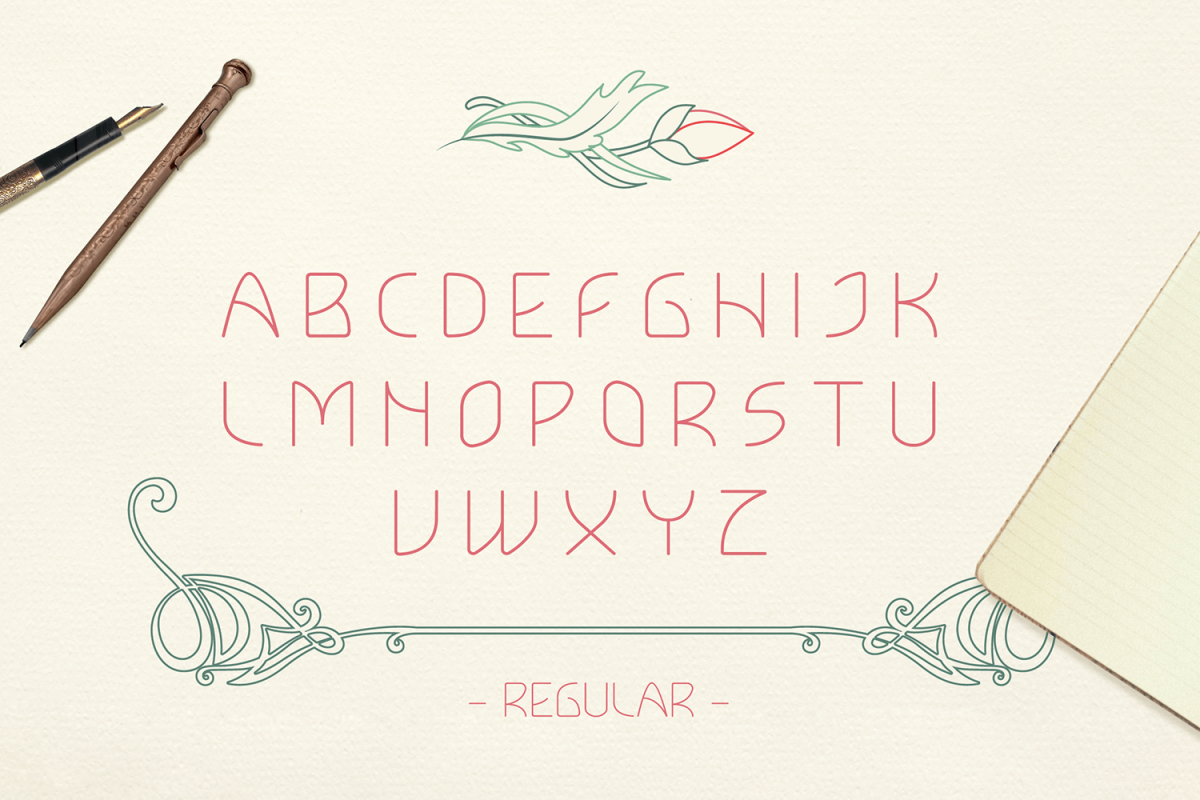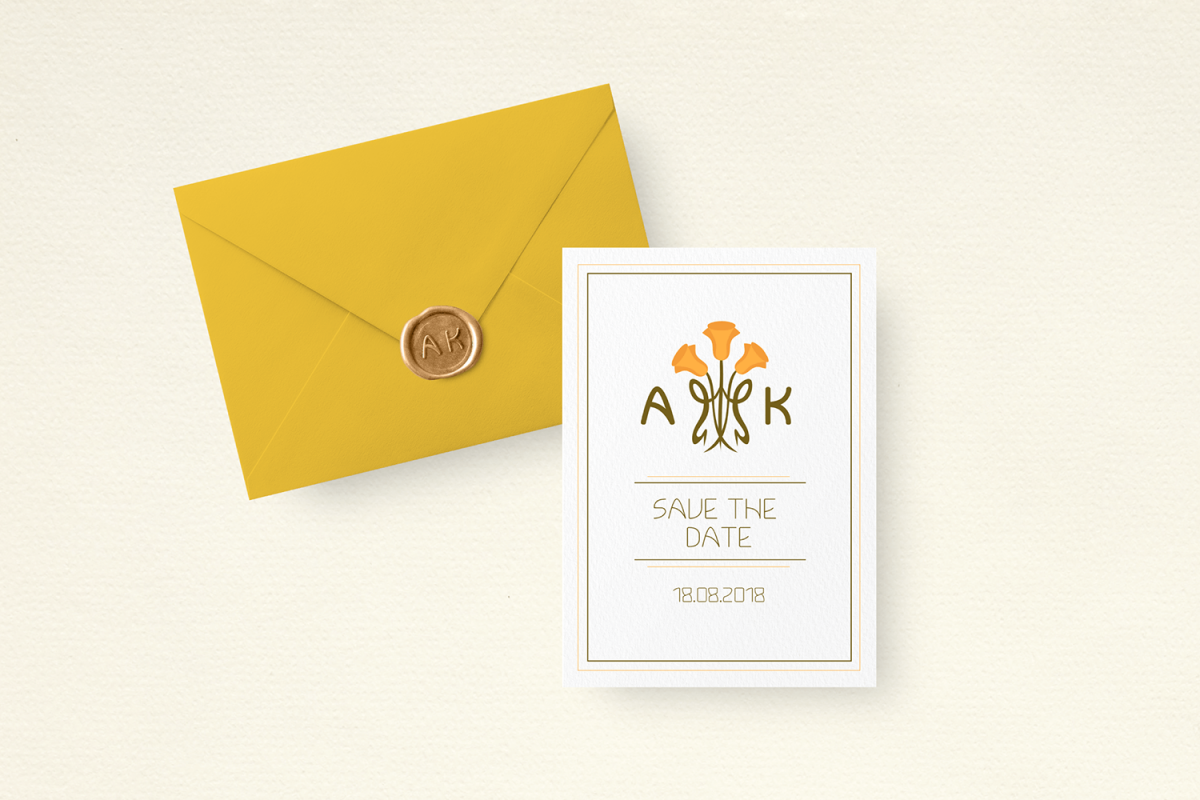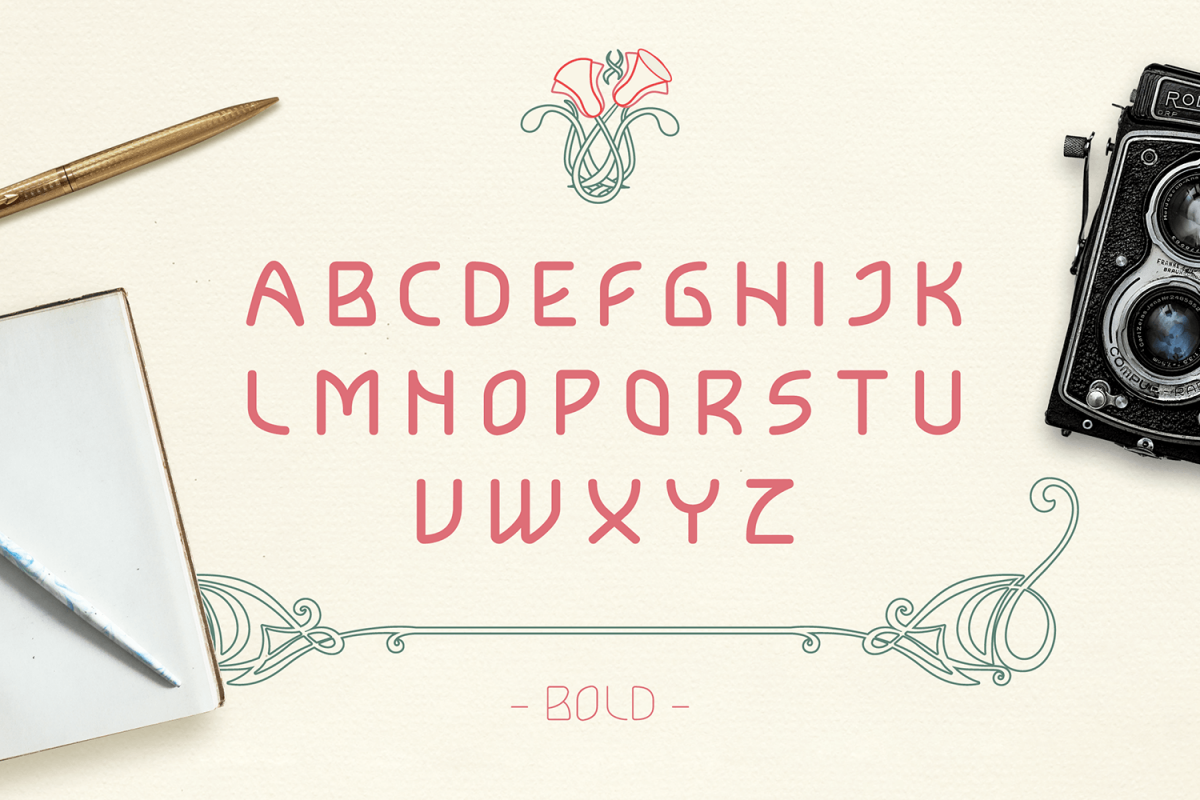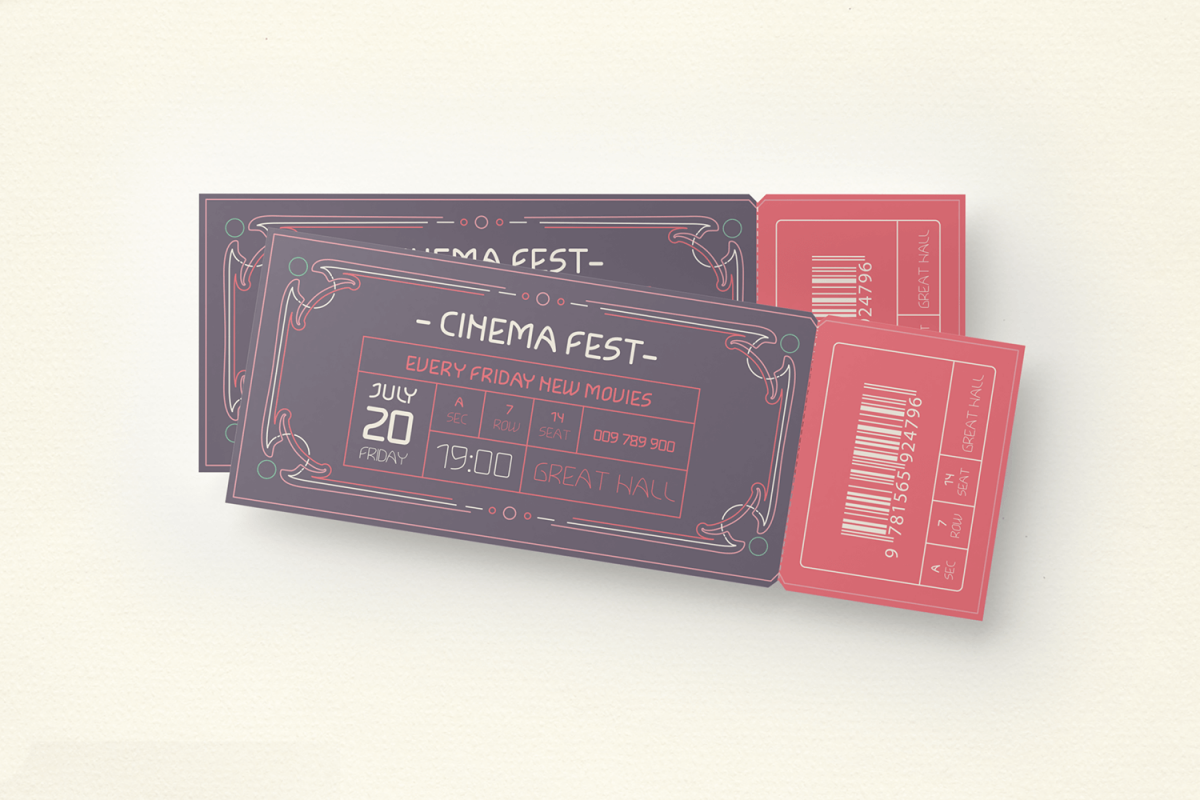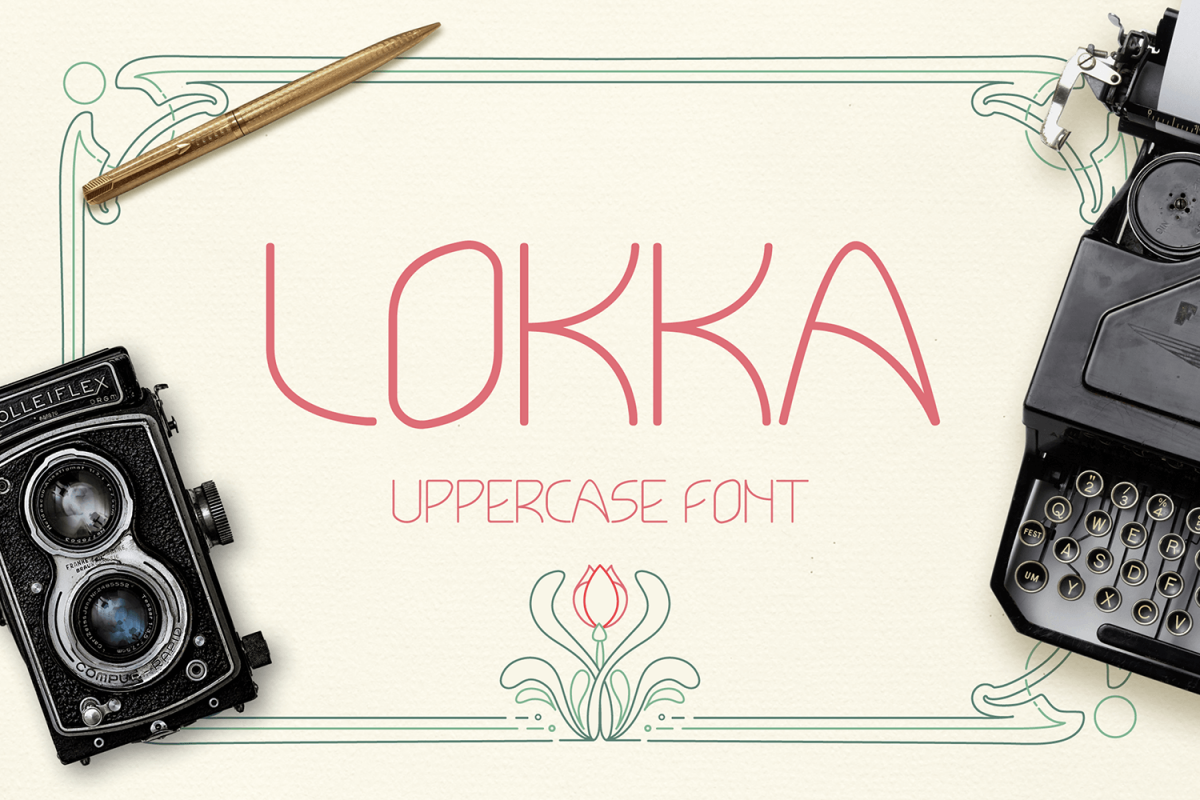
Lokka Typeface
Introducing Lokka. It is an created by Evita Vilaka. Lokka Free Font is a geometric display font with a strong construction underneath and it has modern retro look. Lokka has regular and bold versions. It works well for short descriptions, logo and brand identity designs, packaging, headlines, etc. Uppercase letters, numbers, symbols included.